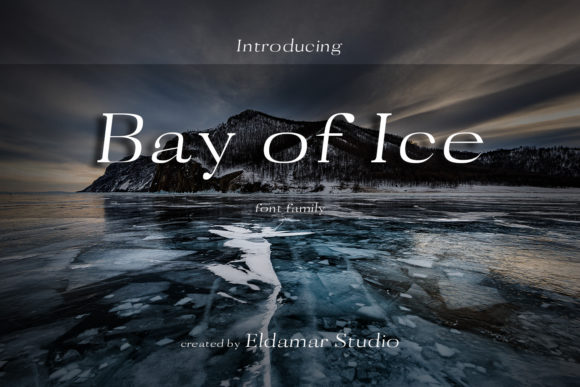
Dive into the icy depths of Bay of Ice, a serif font that will captivate your designs with its crisp lines and alluring curves. Crafted by the masterful hands of DmDesignsStoreArt, this font is a work of art that will elevate your projects to new heights.
For those seeking a touch of sophistication and timeless elegance, Bay of Ice is the perfect choice. Its clean strokes and subtle serifs lend an air of refinement to logos, branding materials, and any project where distinction matters. It's a font that whispers luxury and professionalism, leaving an unforgettable impression on all who encounter it.
But don't let its formal appearance fool you. Bay of Ice is also surprisingly versatile, adapting seamlessly to a wide range of design styles. Whether you're creating invitations, website banners, or social media graphics, this font will effortlessly enhance your work.
Imagine the impact Bay of Ice will have on your logo. Its sharp angles and bold serifs will command attention, giving your brand an instant sense of authority and presence. Or picture it gracing your website header, where its elegant curves will draw visitors in and invite them to explore further.
Bay of Ice is not just a font; it's an investment in the visual identity of your business or project. By incorporating this exceptional typeface into your designs, you're not only enhancing their appearance but also elevating their perceived value. It's a font that will make your work stand out from the crowd and leave a lasting impression.
So why wait? Embrace the icy beauty of Bay of Ice today and unlock the potential of your creative endeavors. Let this font be the shimmering jewel that transforms your designs into masterpieces.